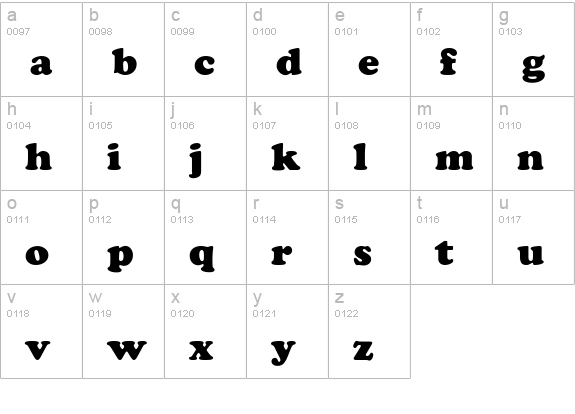
Chacey-Heavy is a heavy, high-impact variant in the Chacey typeface family \xE2\x80\x94 well suited to high-impact headlines, posters, and display advertising.
Introducing Chacey-Heavy font, a bold and powerful typeface designed to make a statement. With its thick, sturdy letterforms and strong presence, Chacey-Heavy is perfect for headlines, branding, posters, and other design projects that require a bold touch. This font exudes confidence and strength, making it ideal for capturing attention and making a lasting impression. Its clean lines and modern aesthetic ensure readability while adding a touch of sophistication to any design. Best of all, Chacey-Heavy font is available for free download at FontsMarket.com. Whether you're a designer looking to add a striking element to your projects or a business owner in need of a memorable logo, Chacey-Heavy font is a versatile and eye-catching choice. Download it today and elevate your designs with this impactful typeface.